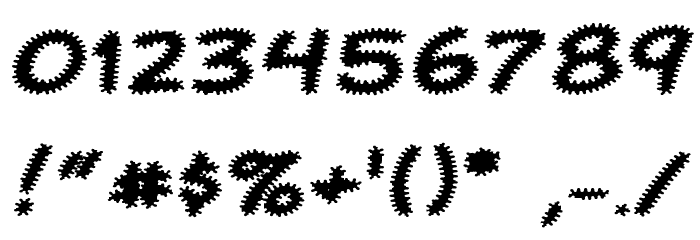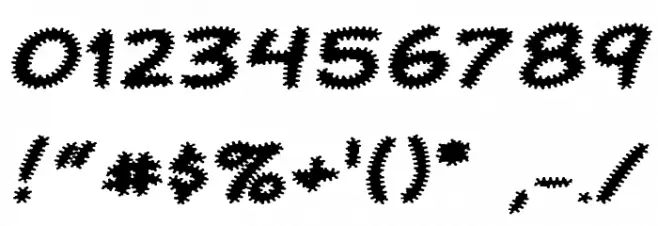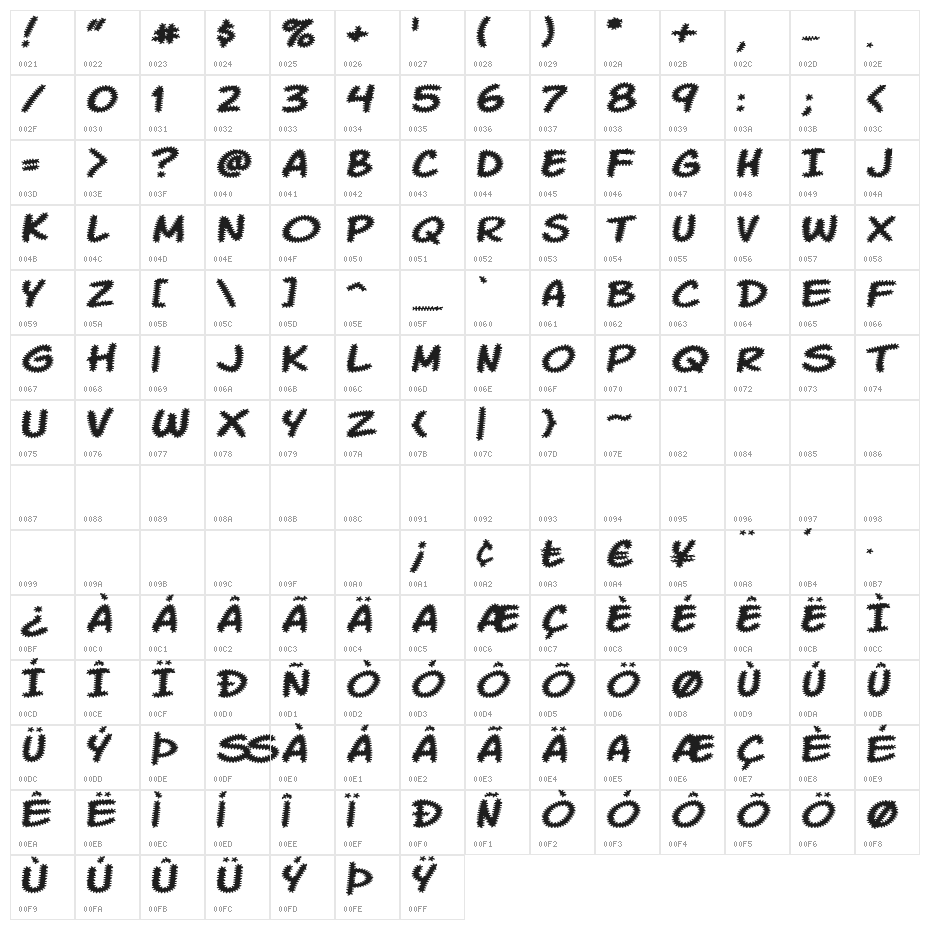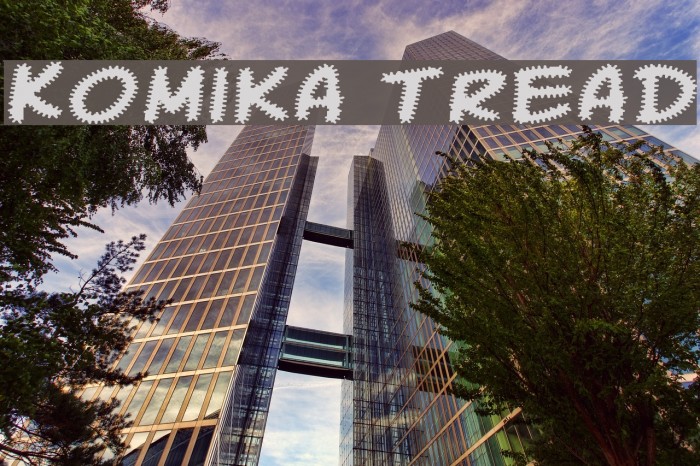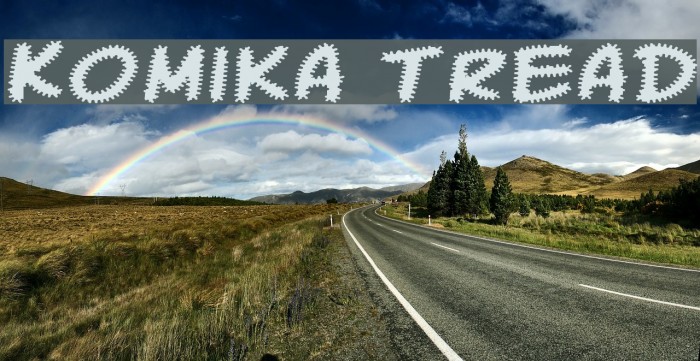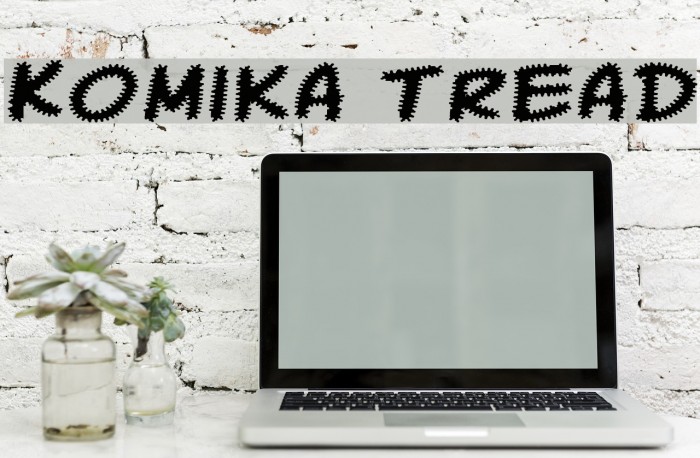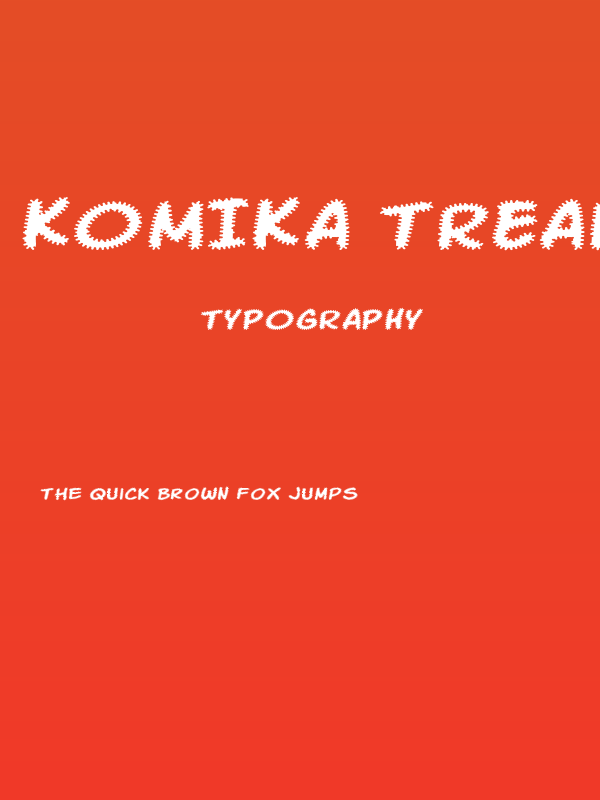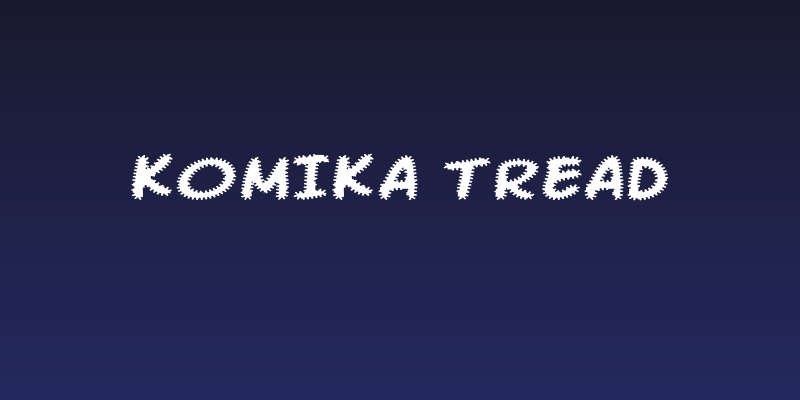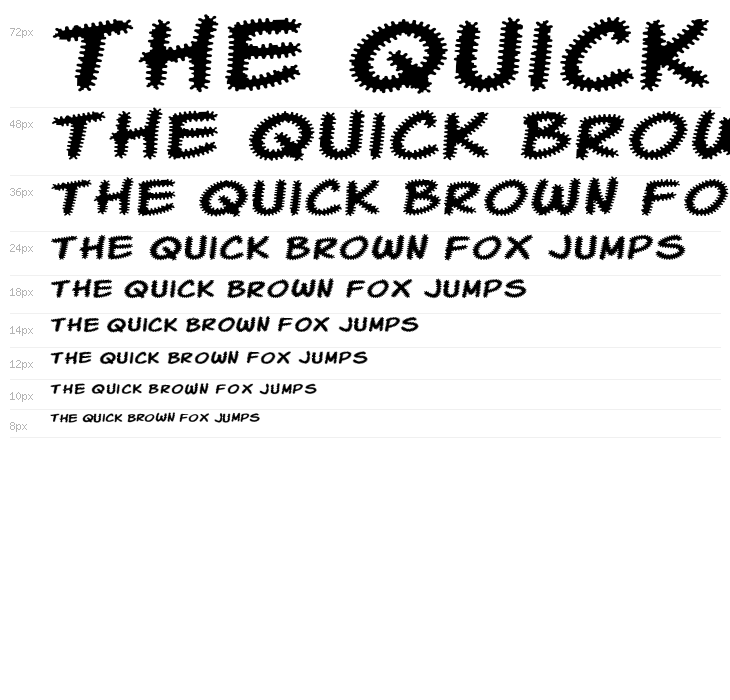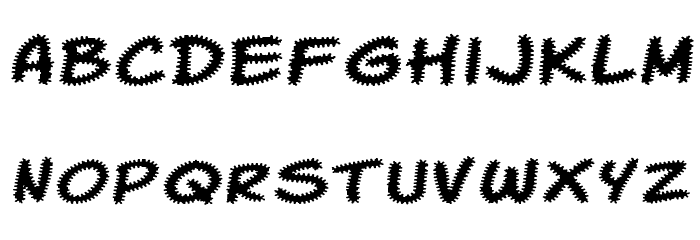
Komika Tread Font
Komika Tread Description
This font features a playful and dynamic style, characterized by its jagged, zigzag edges that give it a unique, energetic appearance. The letters are bold and slightly rounded, creating a sense of movement and excitement. The uppercase and lowercase letters maintain a consistent design, with the same spiky texture applied throughout. Numbers and special characters are equally stylized, ensuring a cohesive look across all text elements. This font is ideal for projects that require a fun and eye-catching design, such as comic books, children's materials, or playful branding.
| Overall Style | Playful, Energetic, Fun |
| Proposed Projects | Comic books, children's materials, playful branding, posters, and party invitations. |